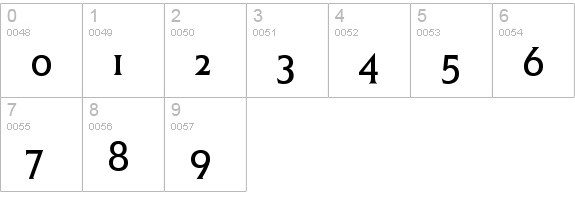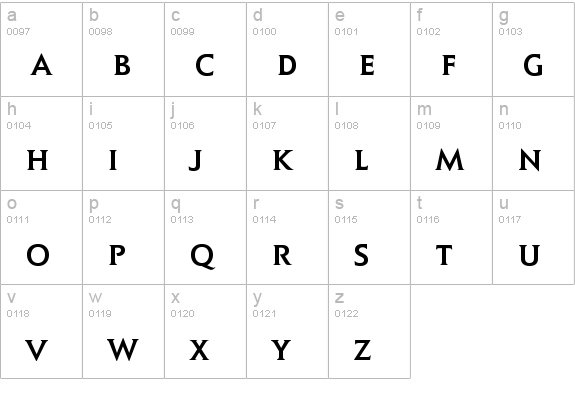
Elan* Expert Book is a comfortable, highly readable variant in the Elan* typeface family \xE2\x80\x94 well suited to long-form body text, articles, and editorial content.
Elan* Expert Book font is a beautifully crafted typeface that exudes elegance and sophistication. With its clean lines and classic design, this font is perfect for a wide range of projects, from elegant invitations to professional reports. What sets Elan* Expert Book font apart is its versatility and readability. Whether used for body text or headlines, this font ensures clear communication and a polished appearance. The subtle curves and refined details make it a timeless choice for any design application. And the best part? Elan* Expert Book font is available for free download at FontsMarket.com. This means you can easily access this high-quality typeface without breaking the bank. So why wait? Elevate your designs with the timeless beauty of Elan* Expert Book font today!